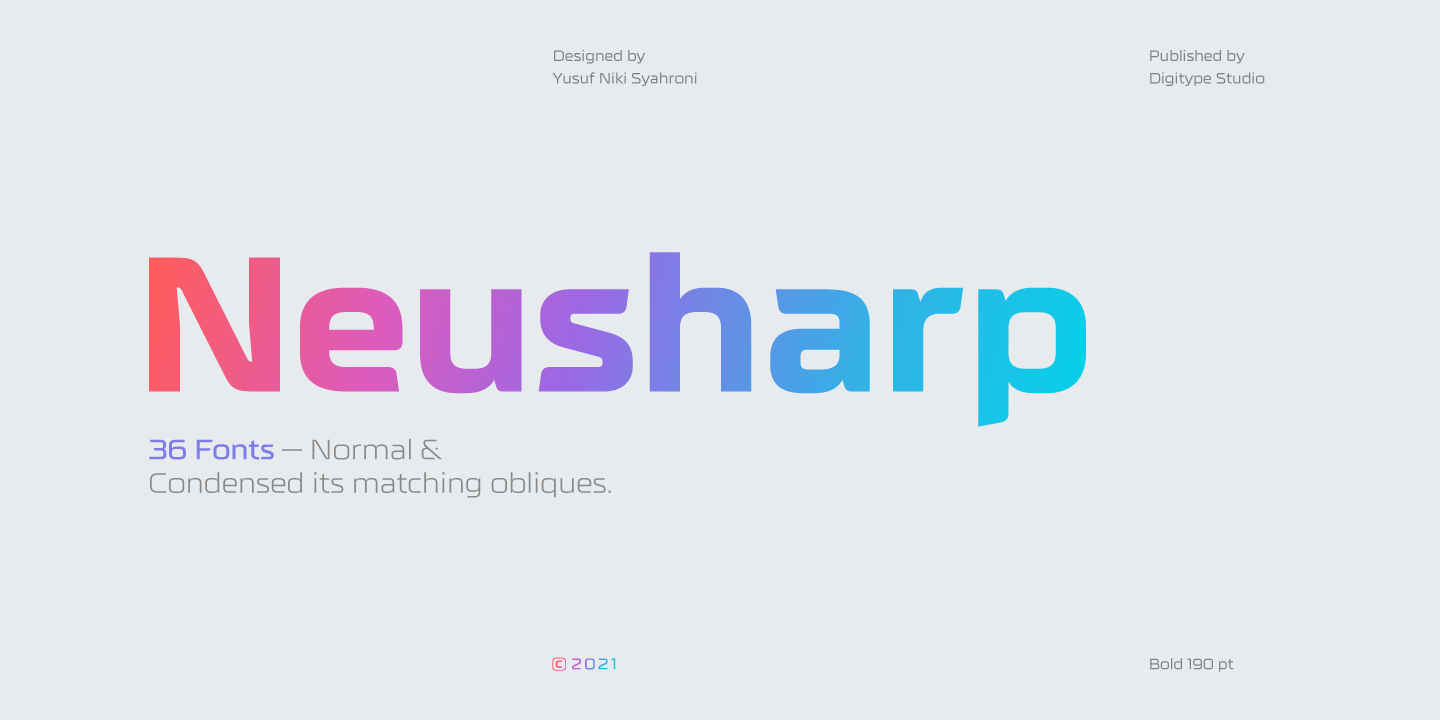
This cutting-edge font is perfect for tech startup branding, digital product interfaces, innovative software design, futuristic advertising campaigns, modern architectural signage, advanced engineering firms, precision manufacturing companies, and next-generation technology marketing. Its sharp character makes it ideal for projects requiring technological precision and forward-thinking innovation.
Neusharp Font is exciting because it embodies the essence of technological advancement with letterforms engineered for maximum clarity and contemporary appeal. The font features razor-sharp edges, geometric precision, and optimized digital performance that reflects the cutting-edge nature of modern technology and innovation. Its futuristic personality communicates intelligence, efficiency, and the relentless pursuit of technological excellence that defines industry leaders.
The Neusharp Font family typically includes multiple weights from light to bold, along with condensed variations and extensive character sets optimized for digital applications. Many versions feature stylistic alternates, technical symbols, and specialized glyphs that enhance its utility for technology-focused communications and international markets.
Whether you're developing innovative tech brands, digital platform interfaces, or futuristic marketing campaigns, Neusharp Font Free Download provides authentic technological sophistication with professional reliability. This typeface transforms standard communications into precision statements that resonate with technology professionals and forward-thinking audiences who appreciate innovation and excellence. Its distinctive character adds immediate credibility to cutting-edge projects while maintaining exceptional functionality, making it an indispensable resource for companies and designers working in Neusharp Font Free Download and the rapidly evolving world of technological advancement.